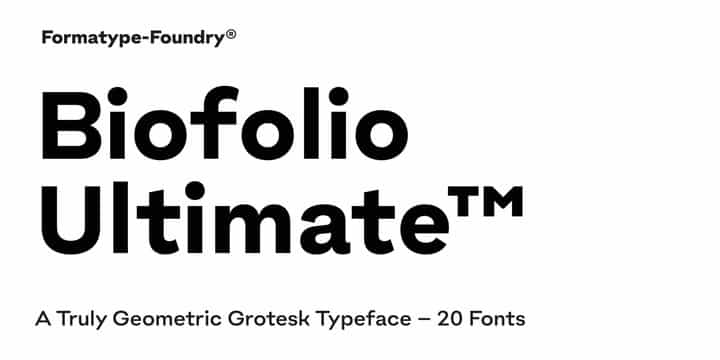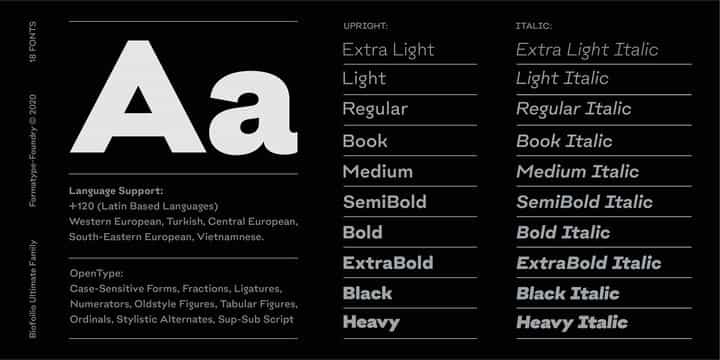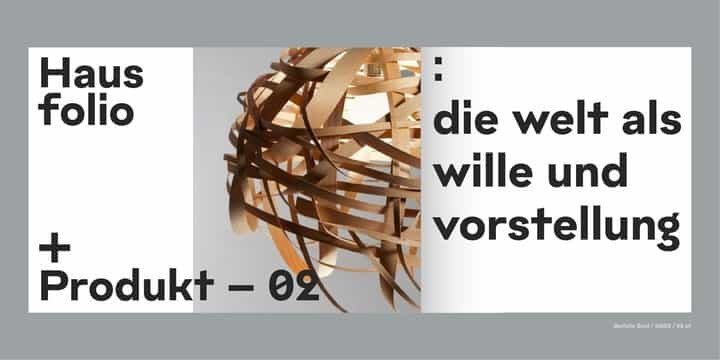
Biofolio Ultimate is slightly rounded geometric sans-serif font with sophisticated characters. This font is perfect for use in projects that are associated with the solemn theme and can also be used in the creation of classics or vintages.